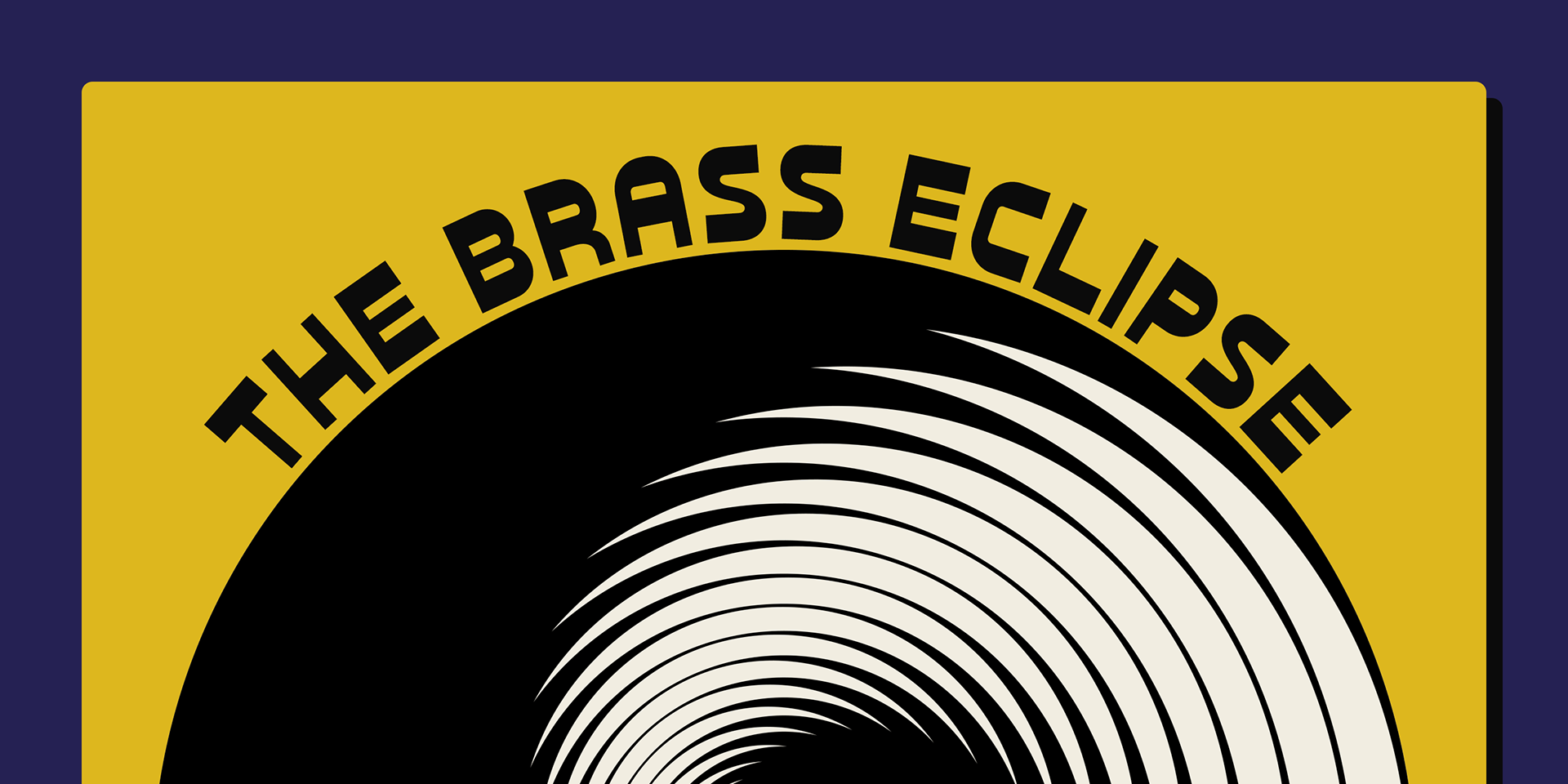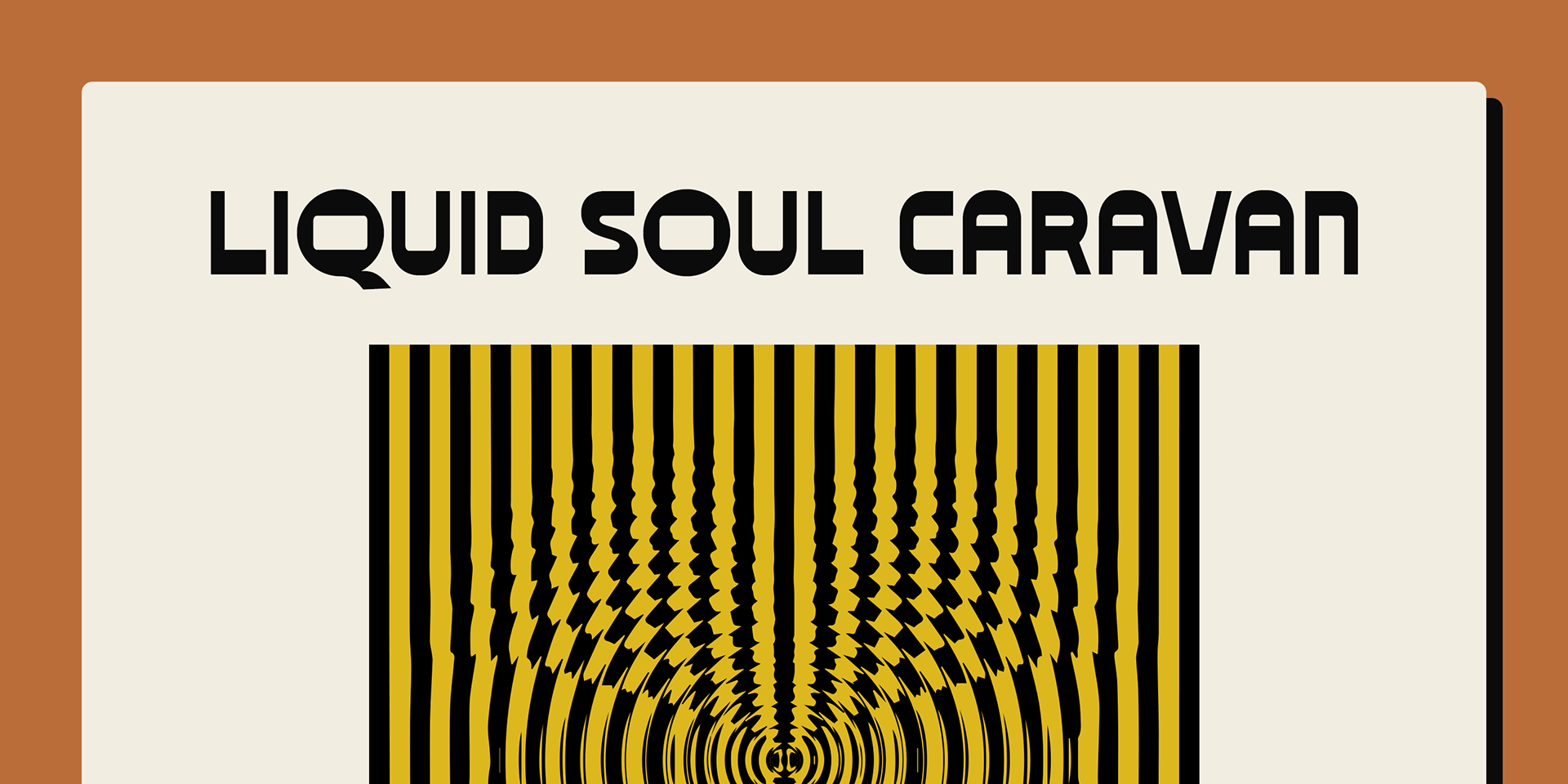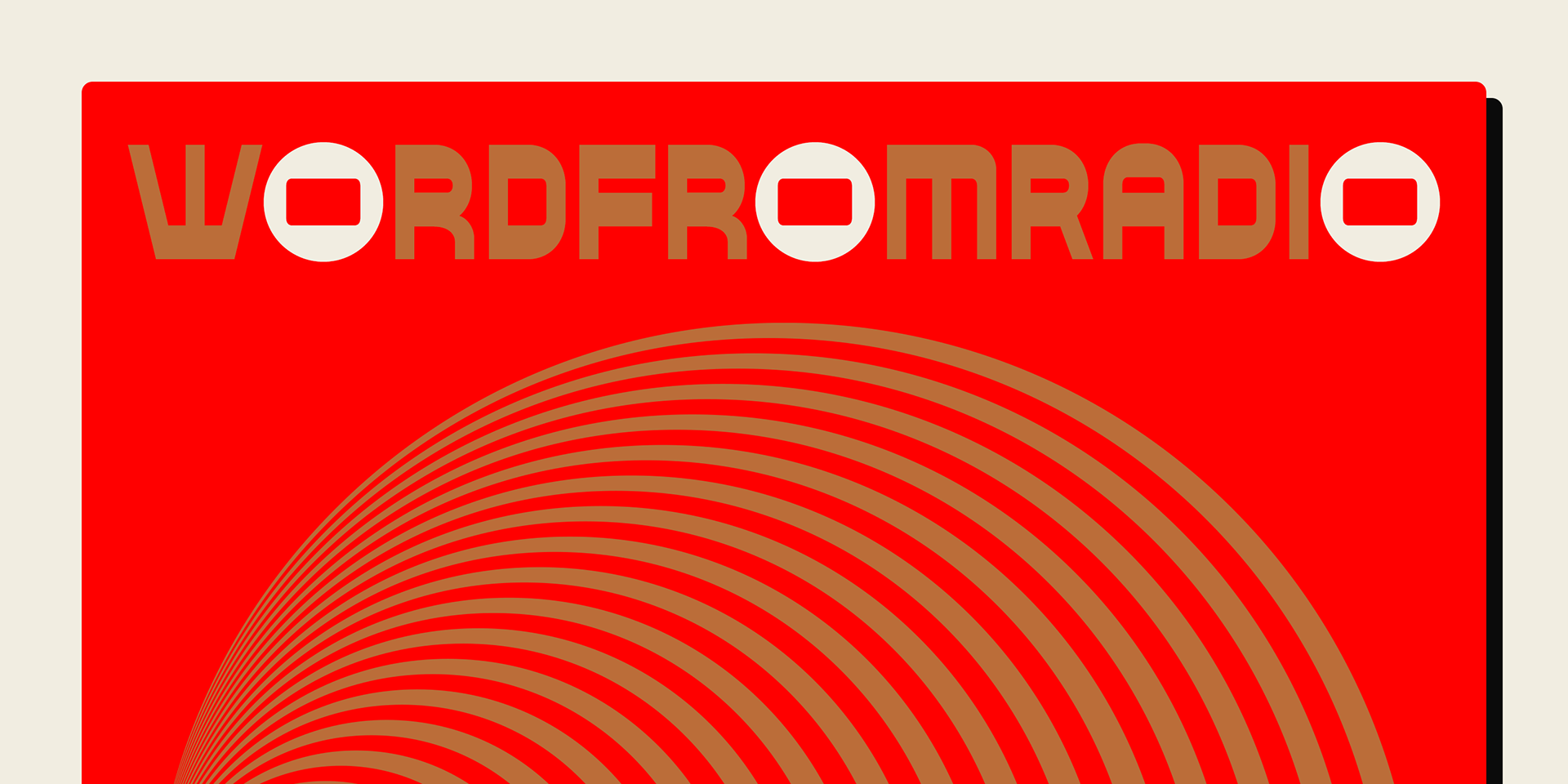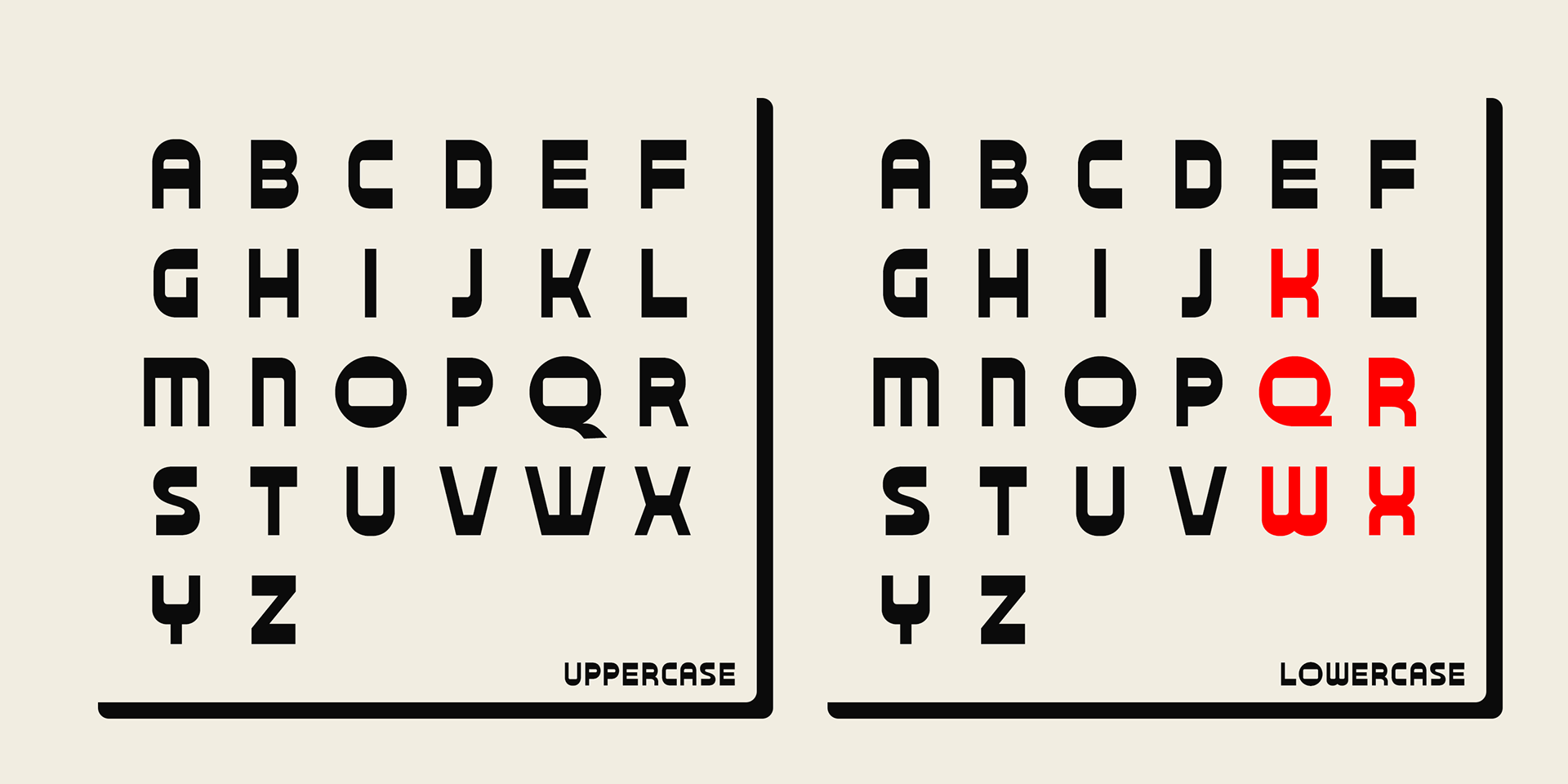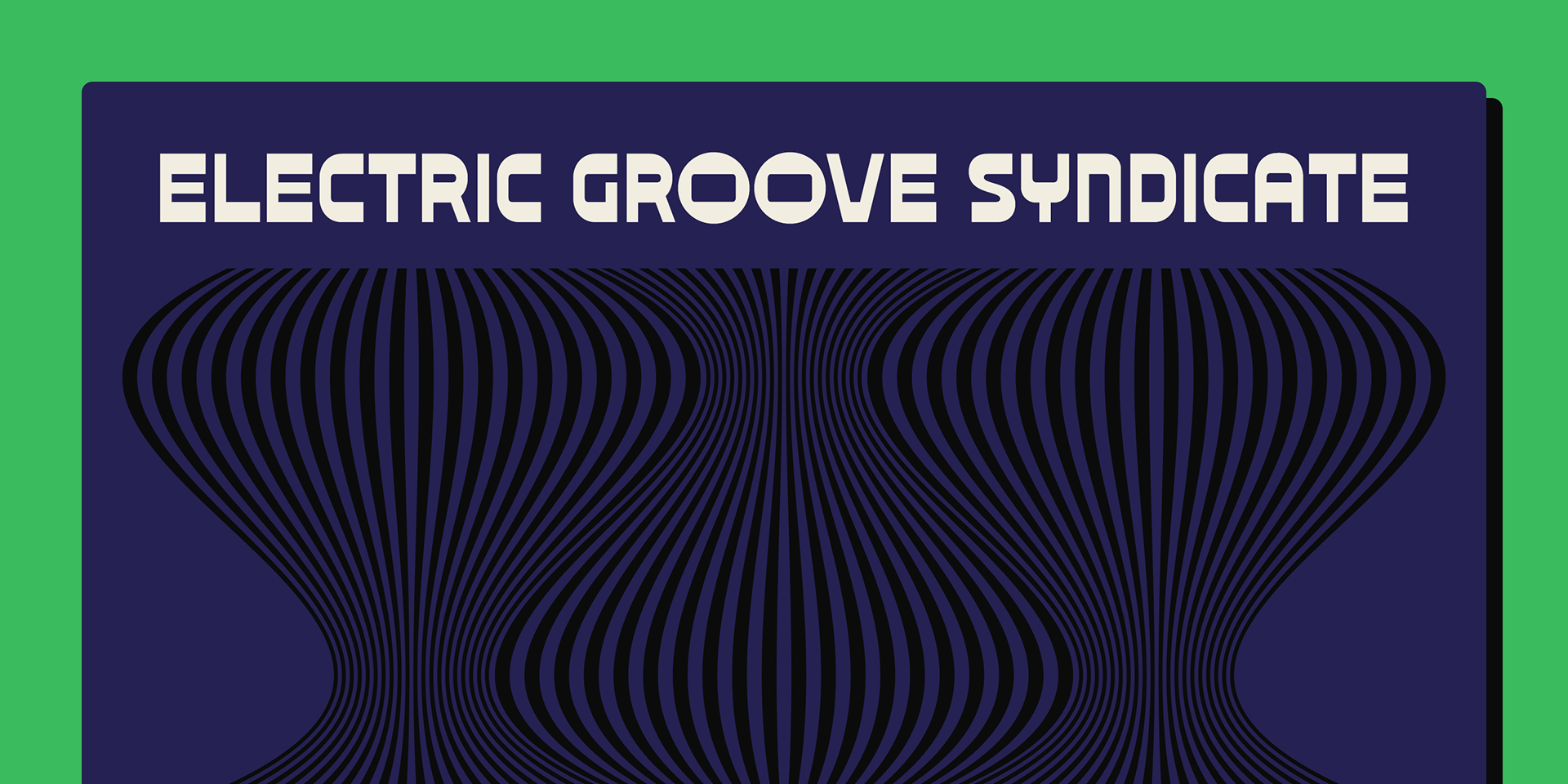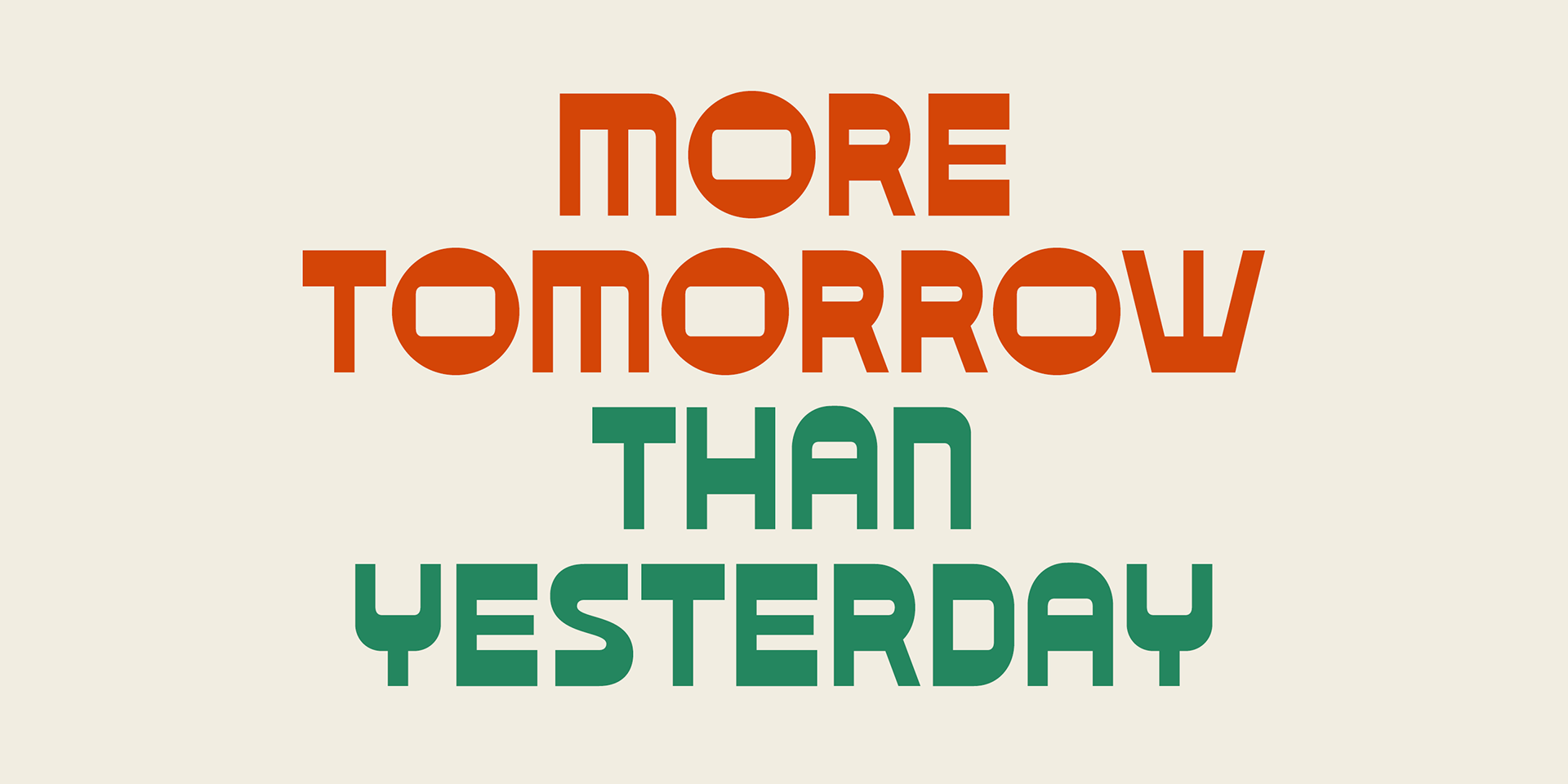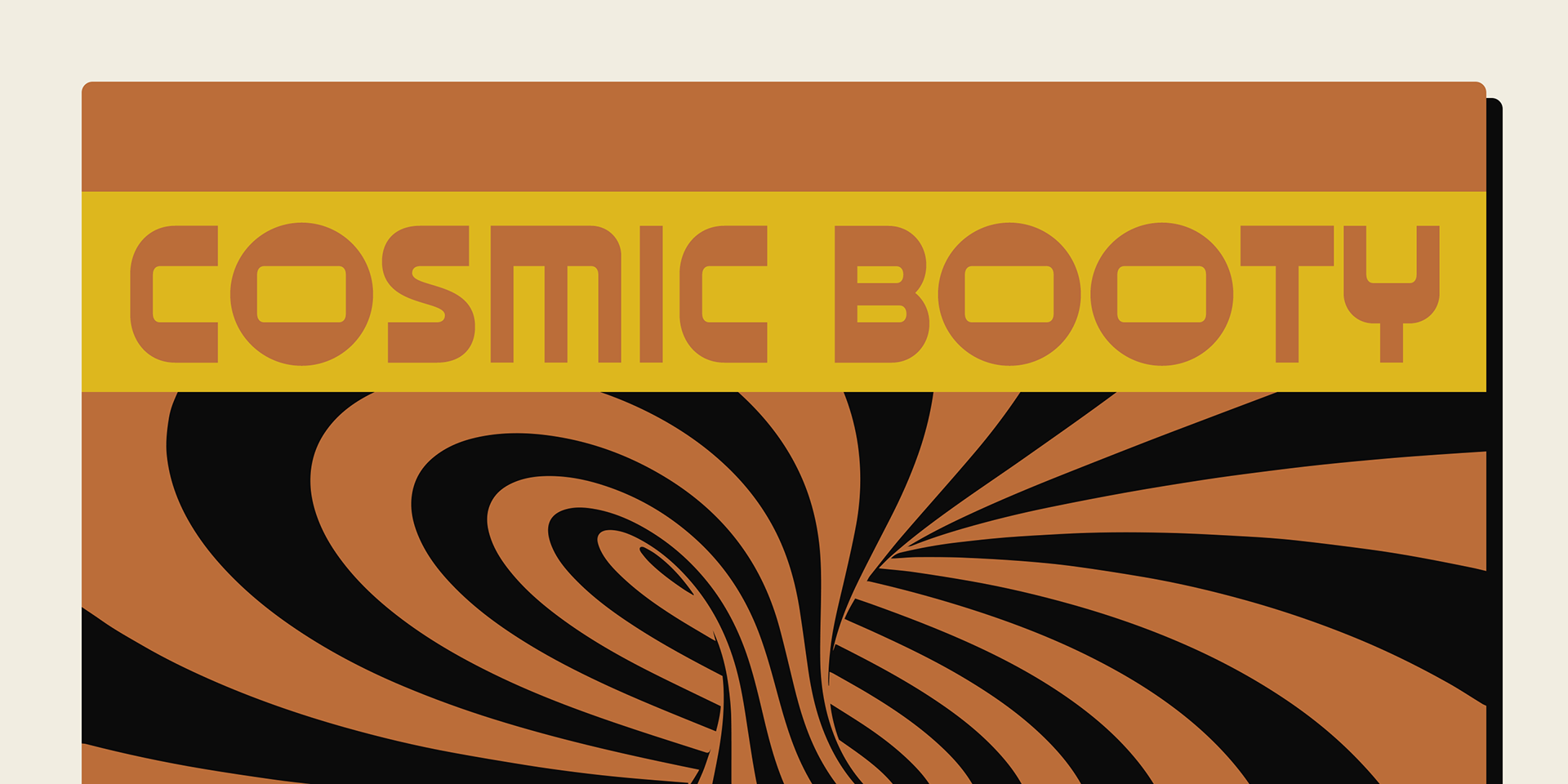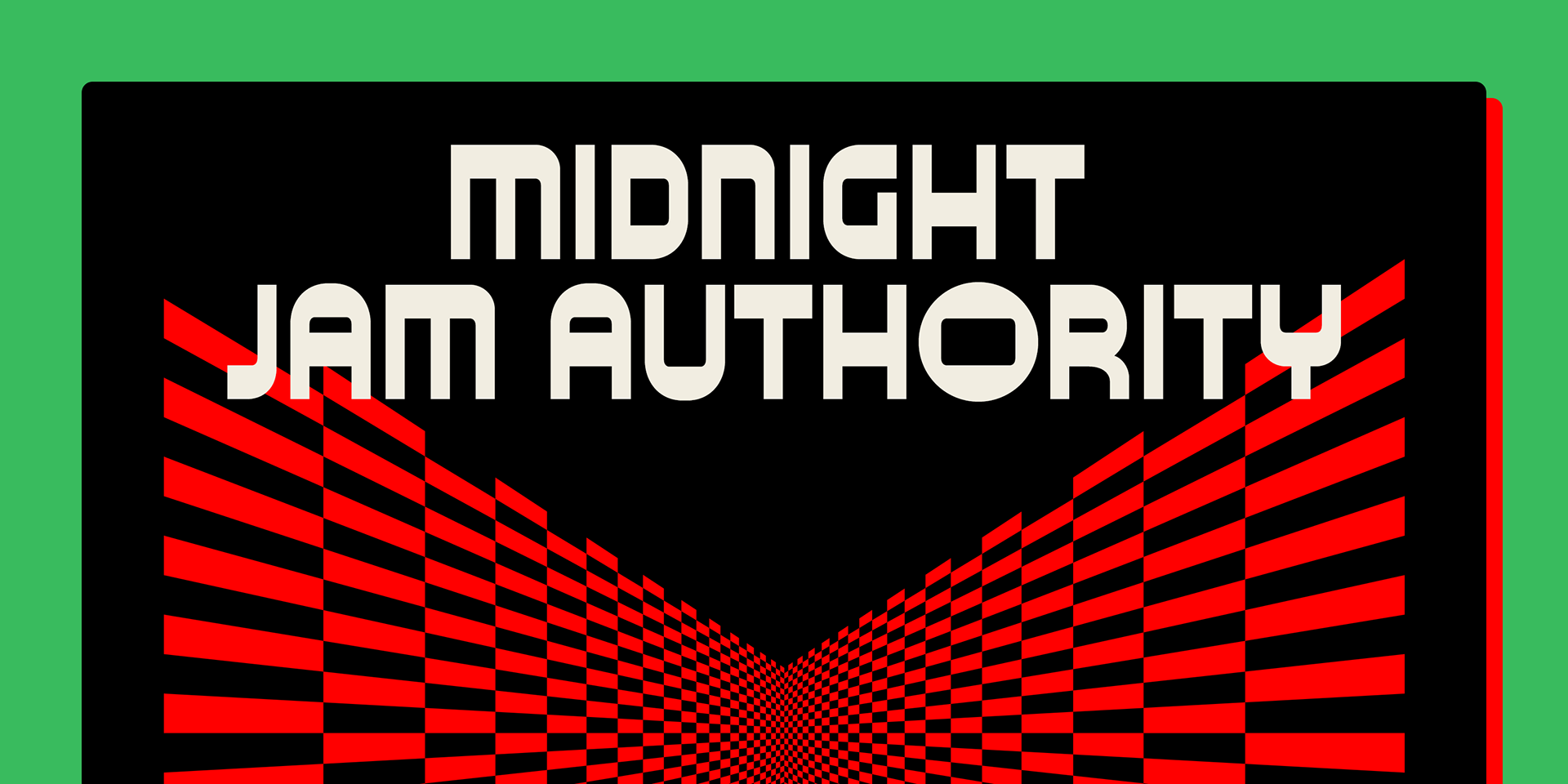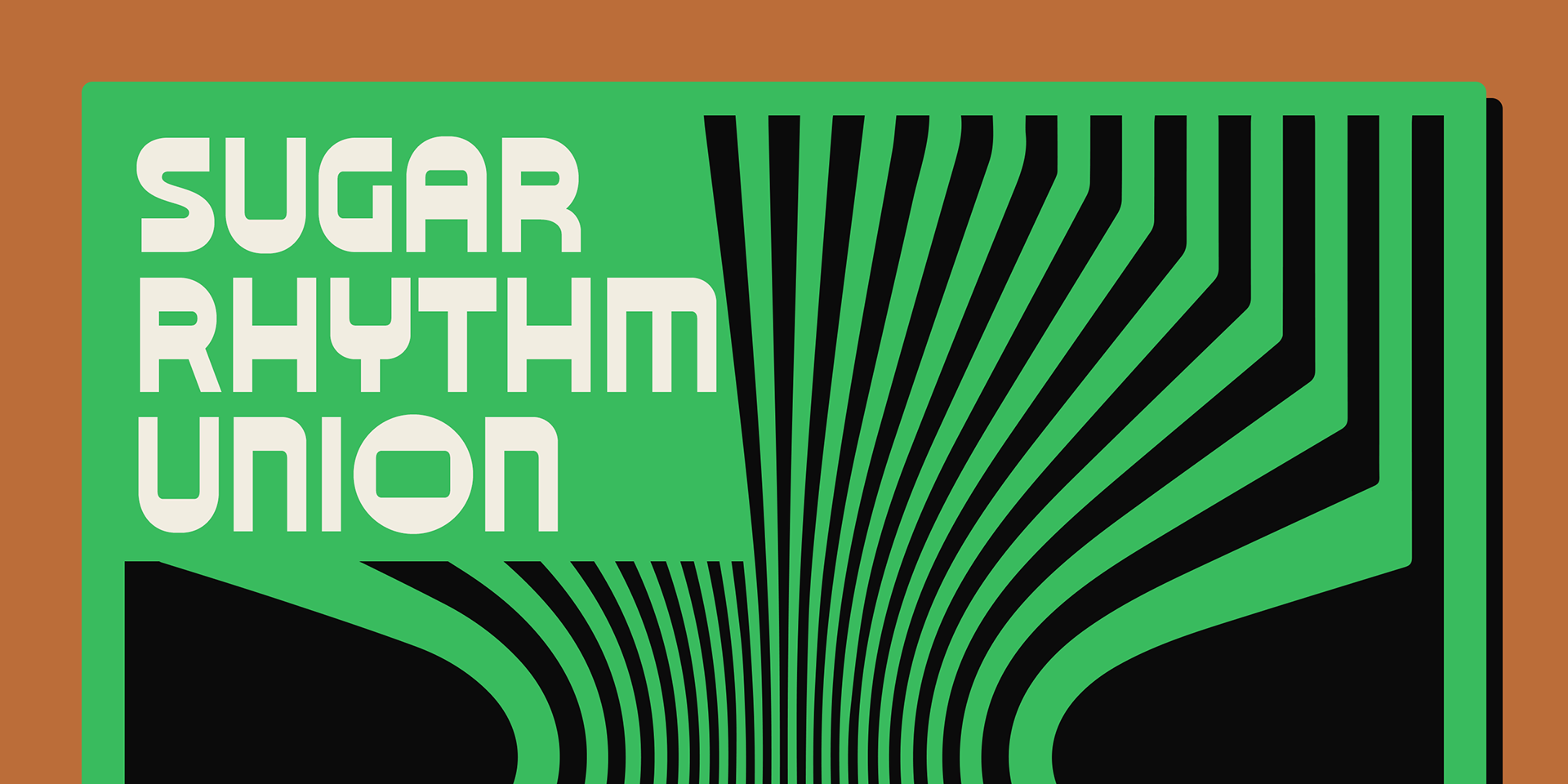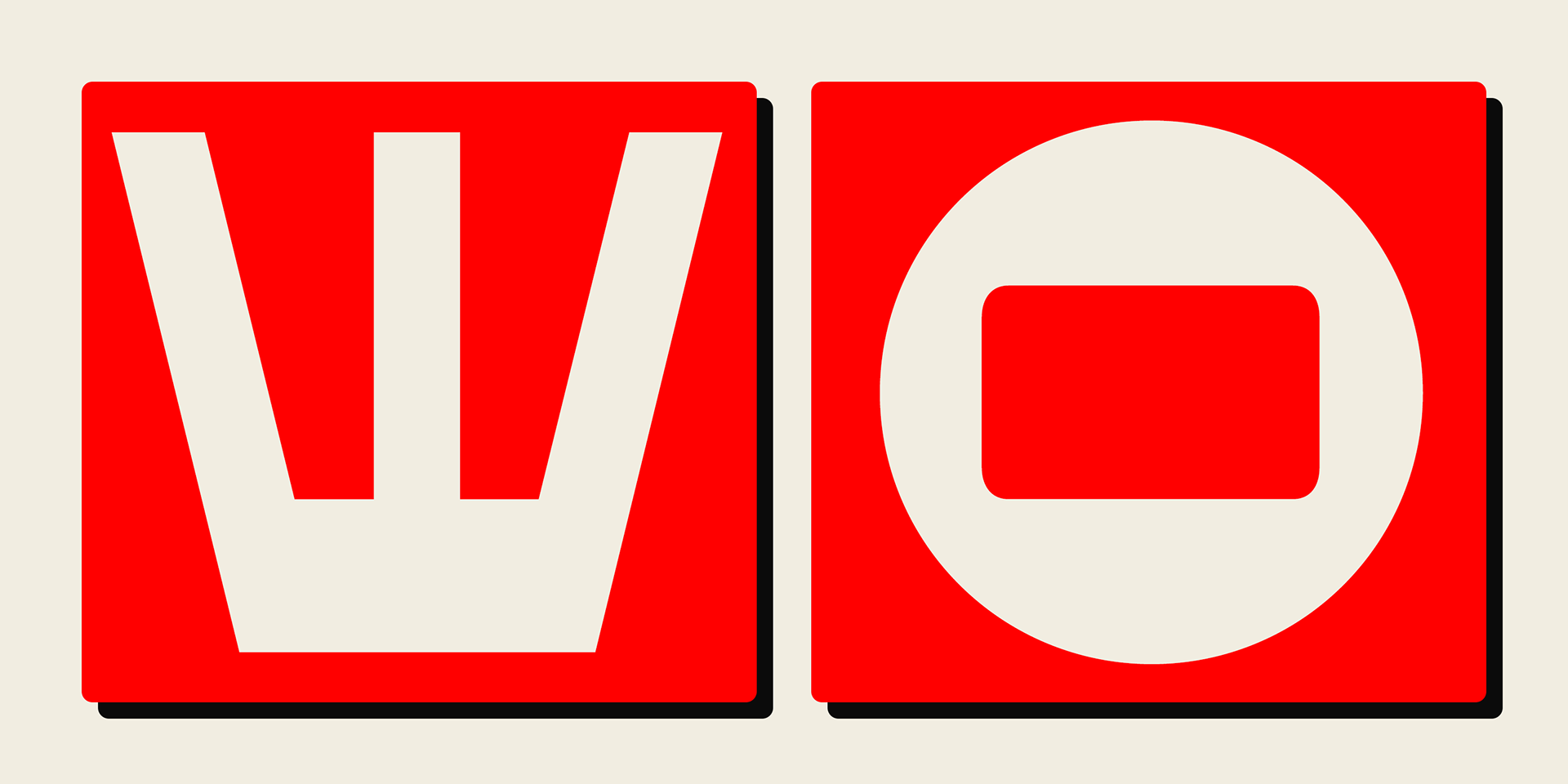
Word From Radio
Based on retro vinyl records from the mid-20th century, this typeface blends funky energy, hippie spirit, and mid-century futuristic style.
A lively mix of nostalgia and forward-thinking design, perfect for bold, retro-inspired creations.